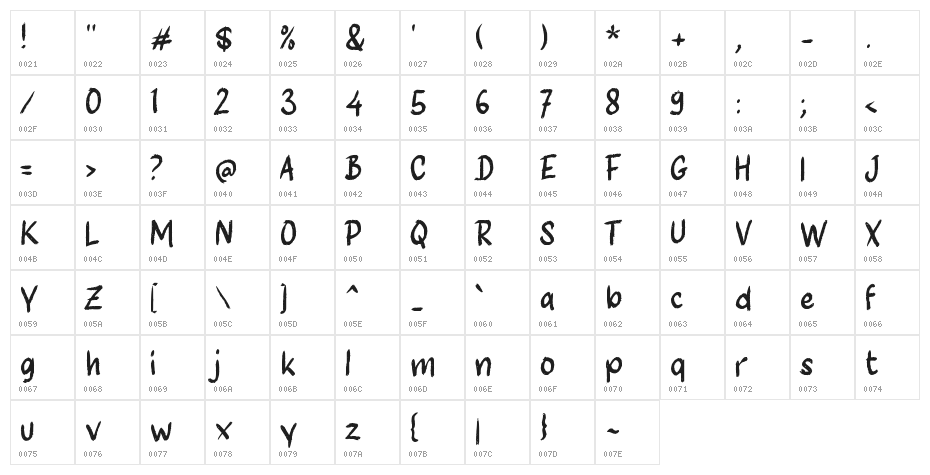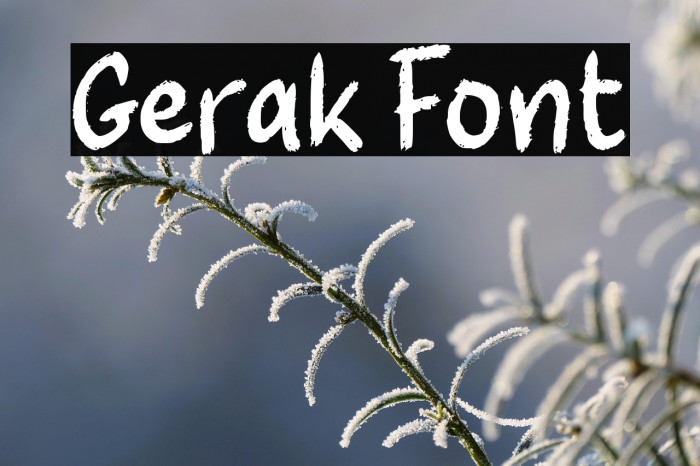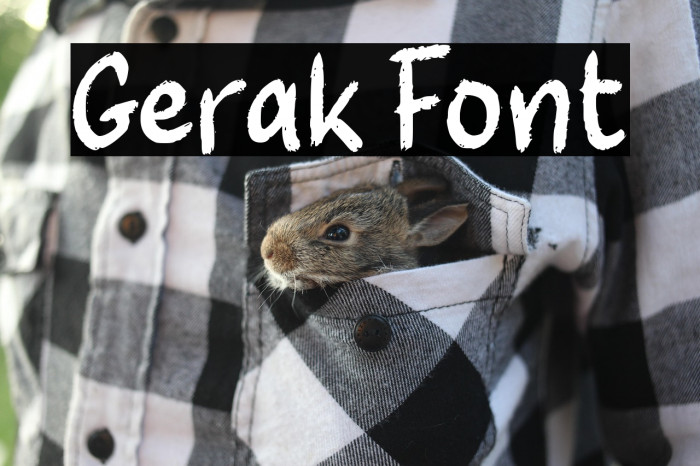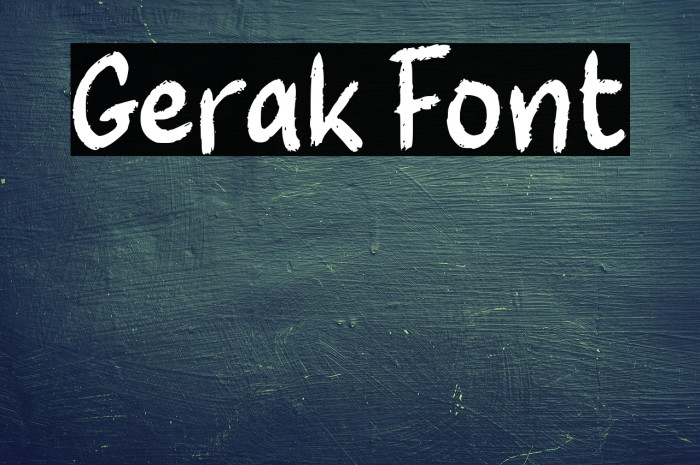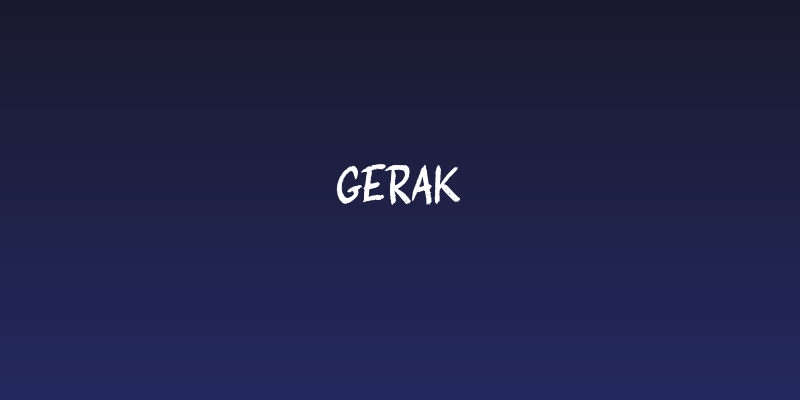
Gerak Font
Gerak Description
This font features a bold, handwritten style with a textured, brush-like appearance. The characters are slightly irregular, giving it a dynamic and energetic feel. The uppercase and lowercase letters maintain a consistent style, with rounded edges and a playful, informal look. The numbers and special characters follow the same aesthetic, ensuring a cohesive appearance across all glyphs. This font is ideal for projects that require a personal touch or a creative, artistic vibe.